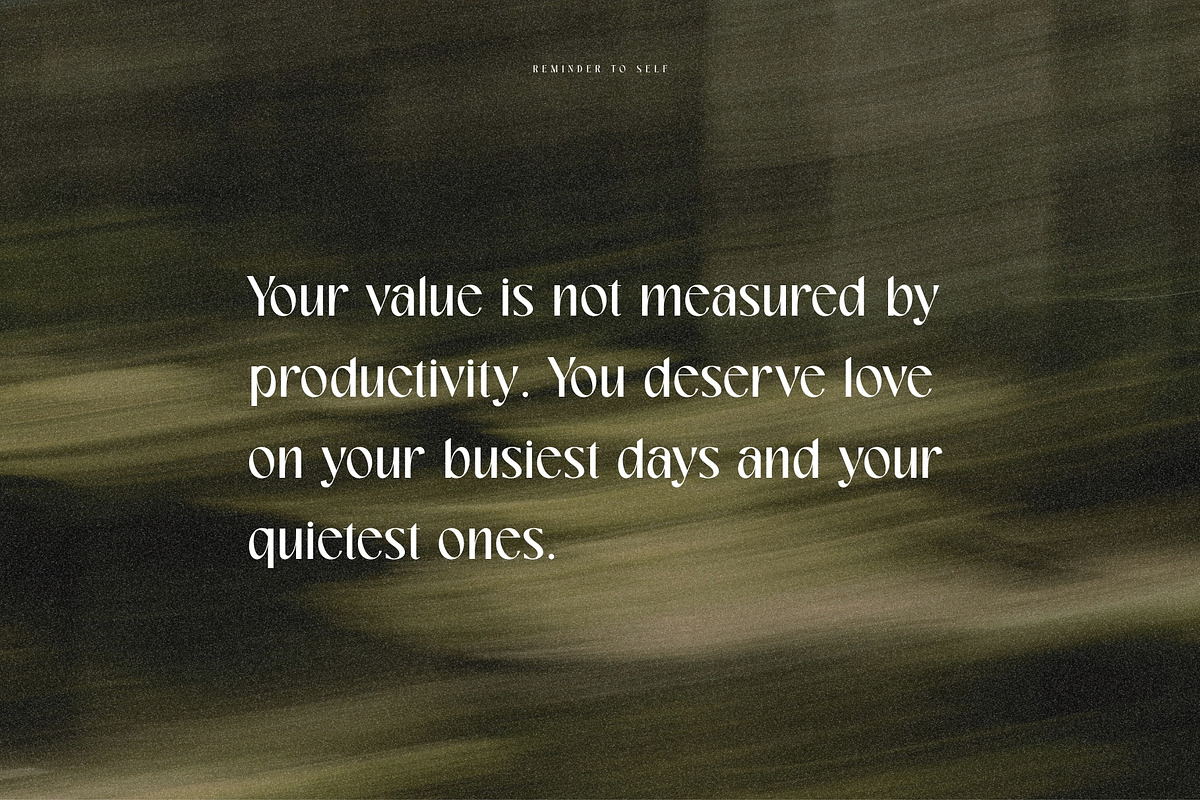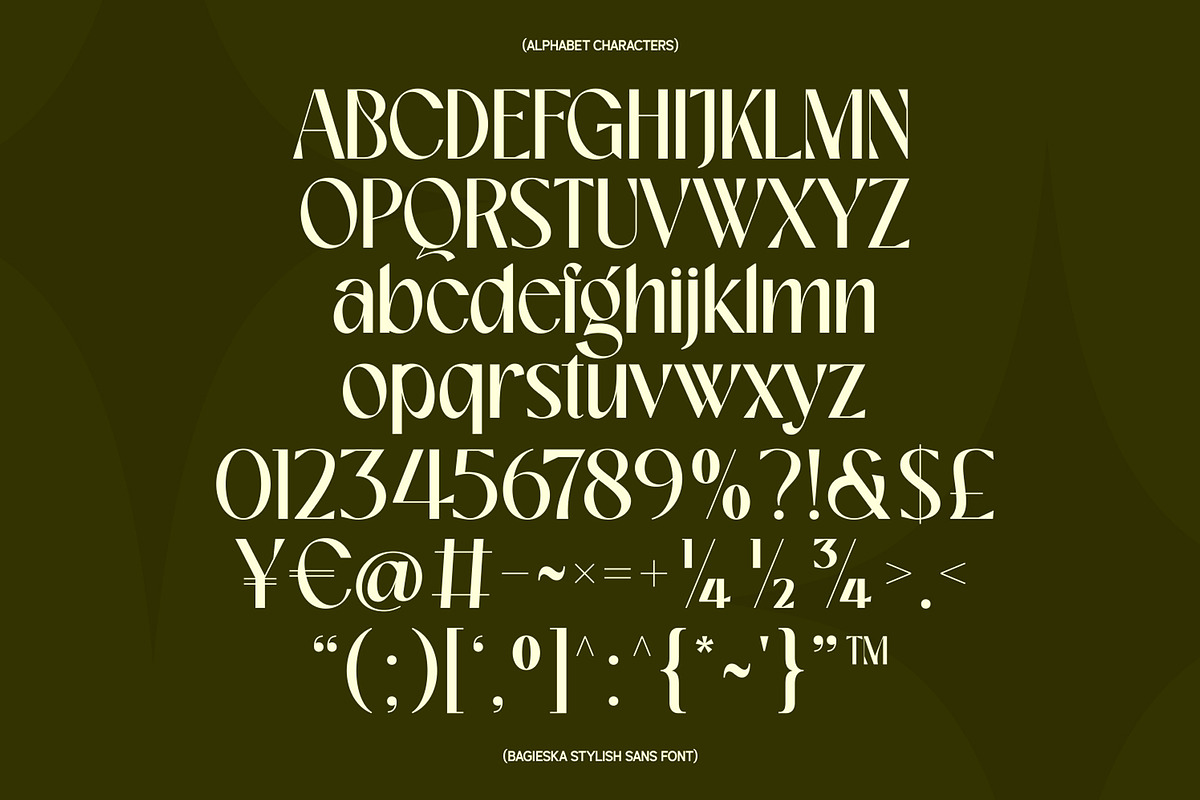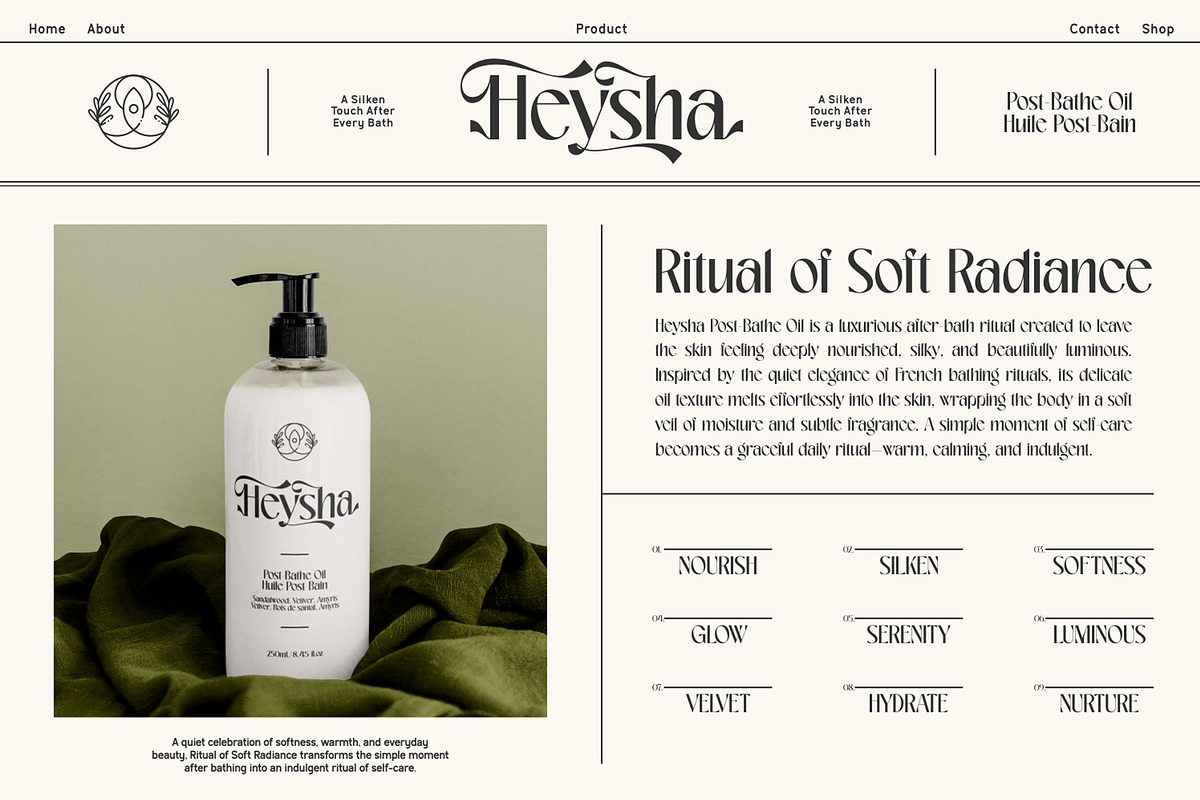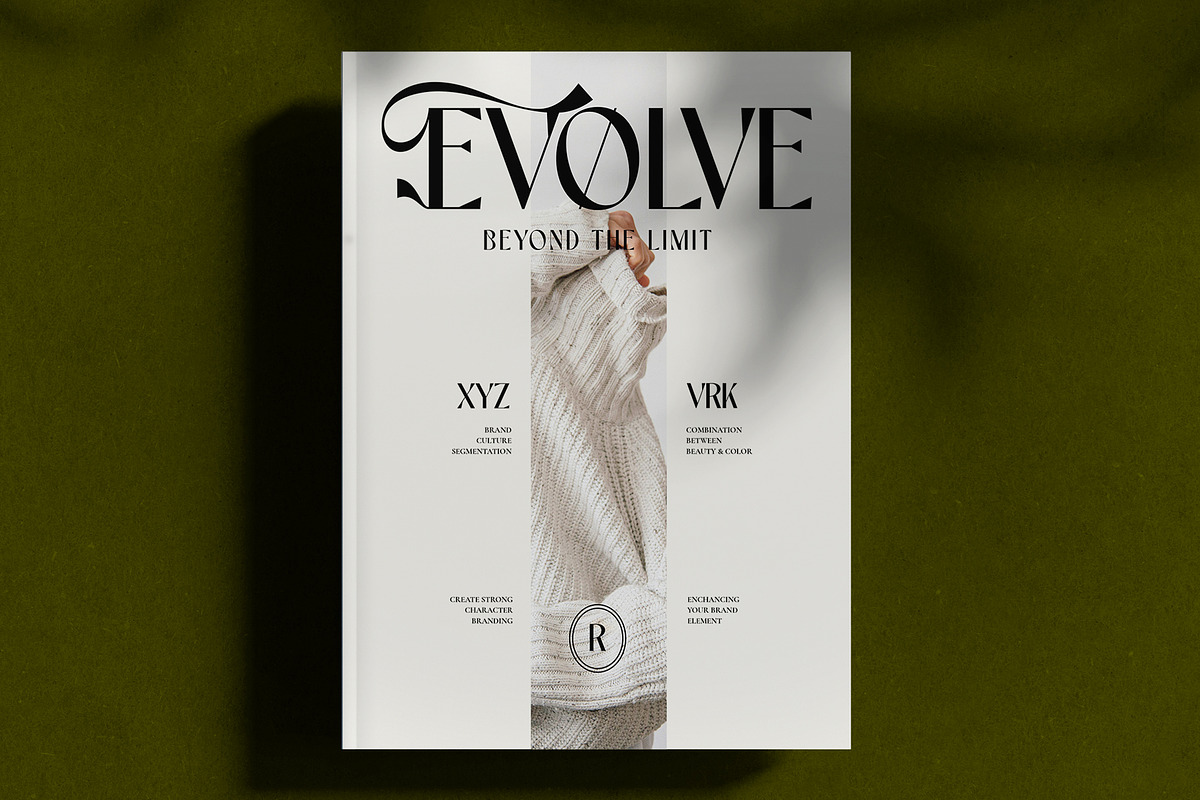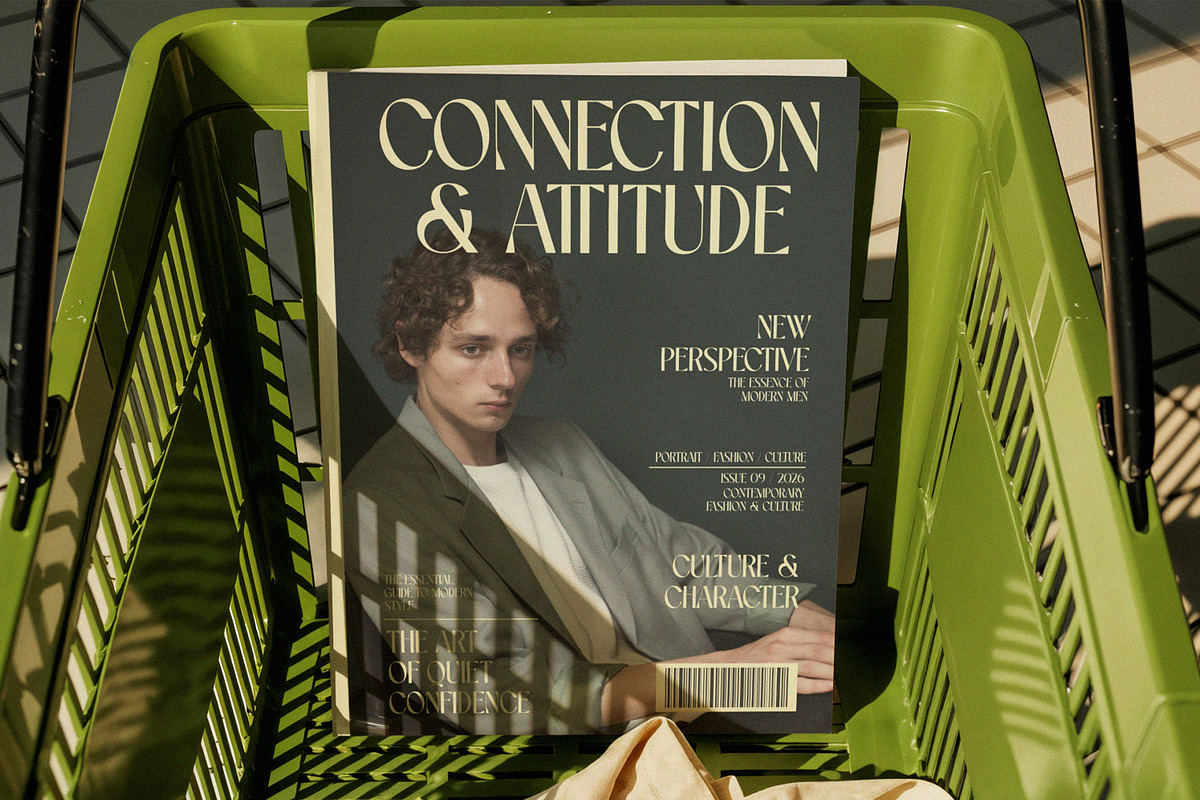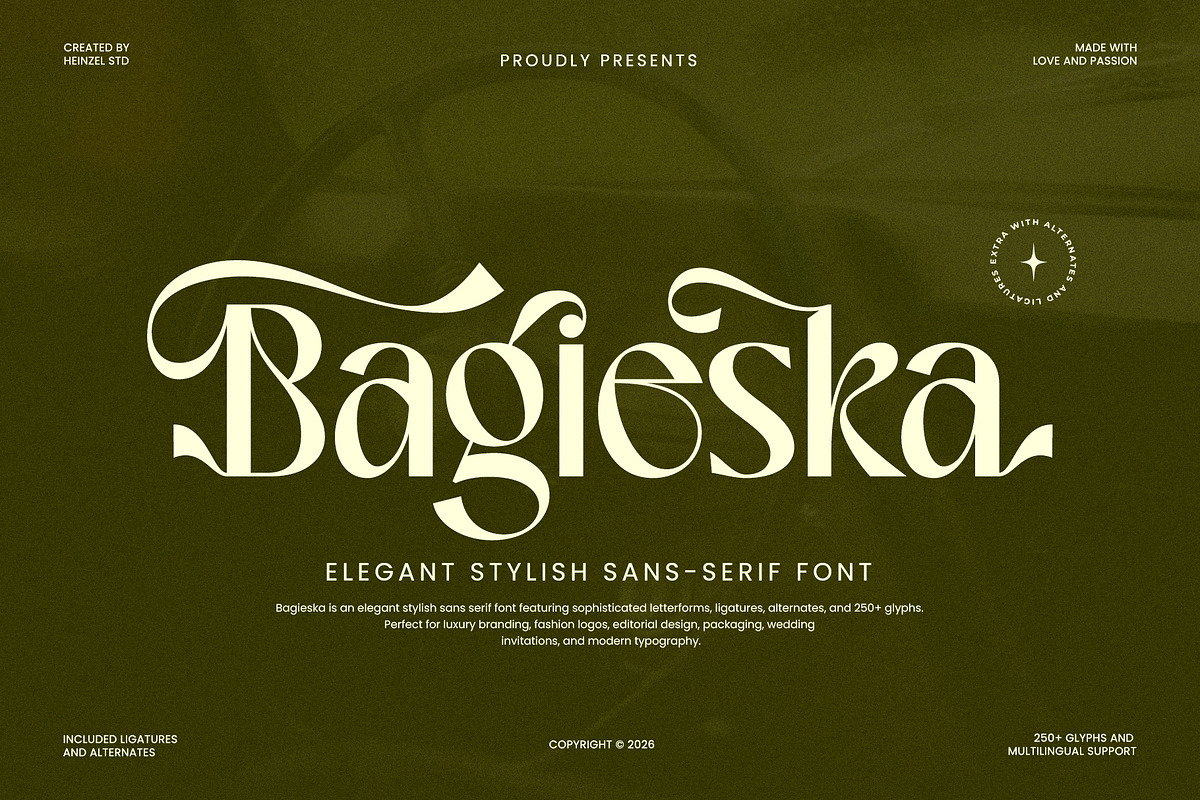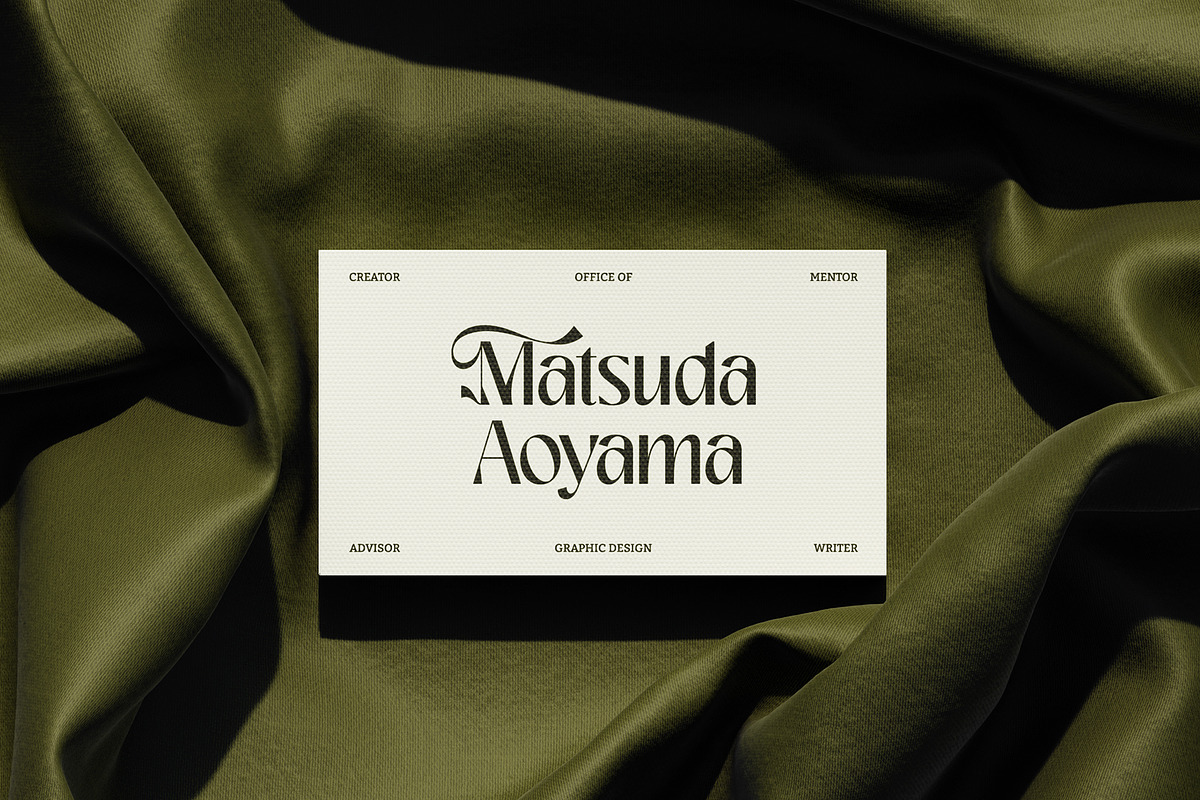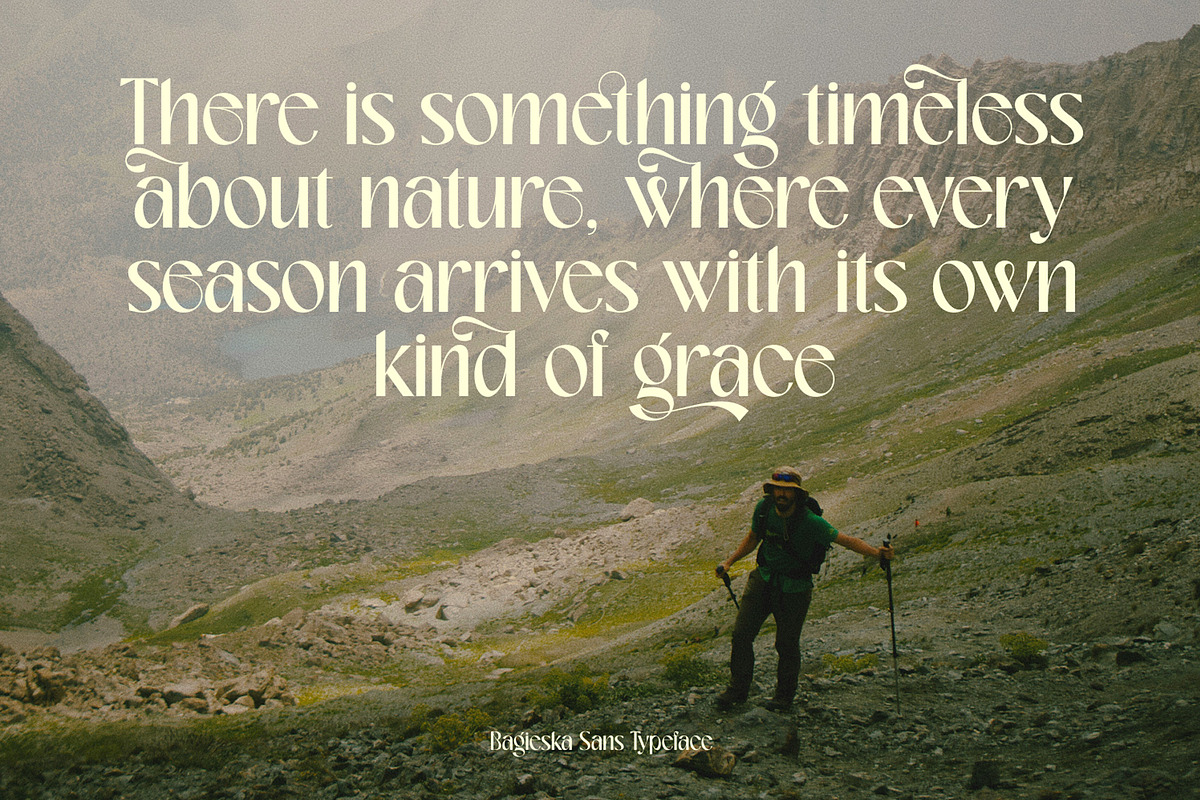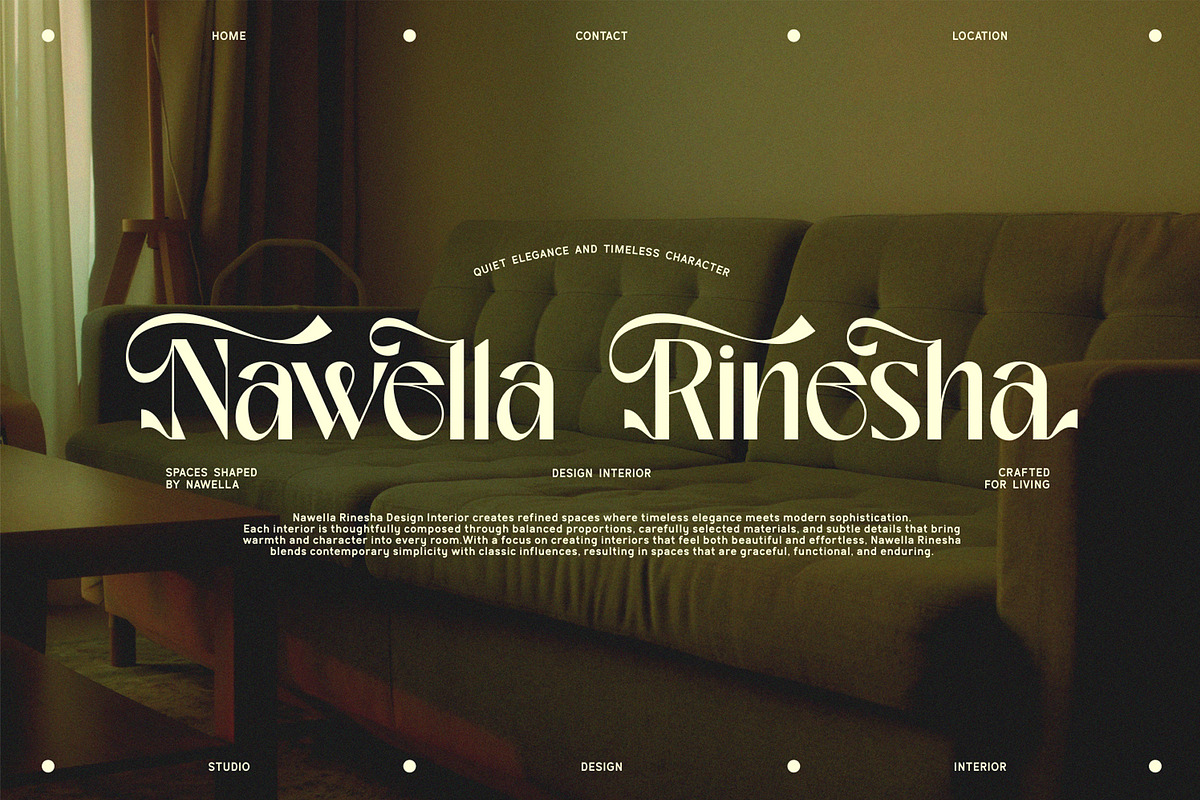
Bagieska Stylish Sans Serif Font
Bagieska – Elegant Stylish Sans Serif Font with Ligatures & Alternates
Bagieska is an elegant and stylish sans serif font designed to bring a sophisticated, fashion-forward character to modern branding and creative designs. Its high-contrast letterforms, graceful curves, dramatic swashes, and distinctive details create a luxurious editorial aesthetic while maintaining a contemporary feel.
Bagieska is perfect for luxury branding, fashion logos, editorial design, beauty products, wedding stationery, magazine covers, packaging, social media graphics, invitations, and premium advertising. The font combines elegant typography with expressive shapes, making it ideal for designs that need a refined yet memorable visual identity.
With 250+ glyphs, multilingual support, ligatures, and stylistic alternates, Bagieska gives designers plenty of creative flexibility. Use the standard characters for a clean sophisticated look, or explore the alternates and ligatures to create more artistic and distinctive typography.
Whether you're creating a fashion brand logo, luxury packaging, elegant wedding invitation, boutique identity, magazine headline, or premium social media design, Bagieska adds a polished and stylish touch to your work.